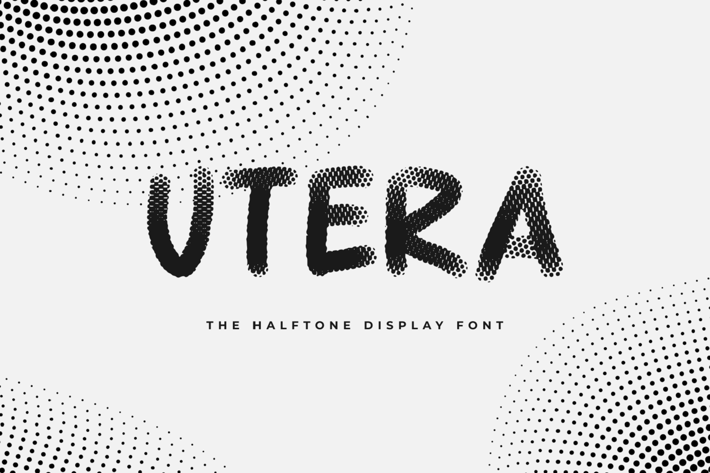
Utera - The Halftone Display Font
Utera - The Halftone Display Font, it’s perfect for logos, name card, magazine layouts, invitations, headers, movie, cinema or even large-scale artwork.